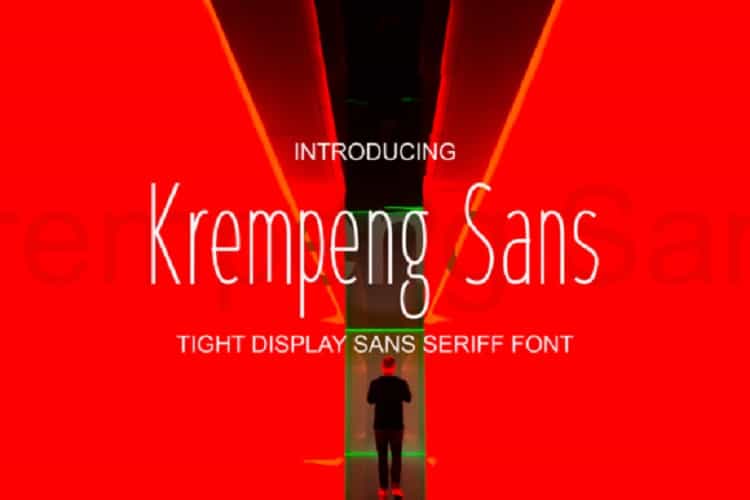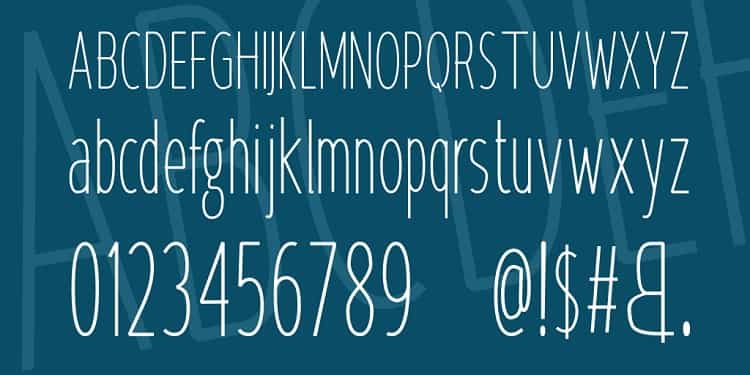
About the font, Krempeng Sans is a beautiful sans serif font that offers the touch of elegance and charm incorporated into the design. It has been originated by S. P. M. H and is open for downloading and using it only for personal purpose. The free edition allows for the typing of all the capital and small letters plus a few other signs, and this is all.